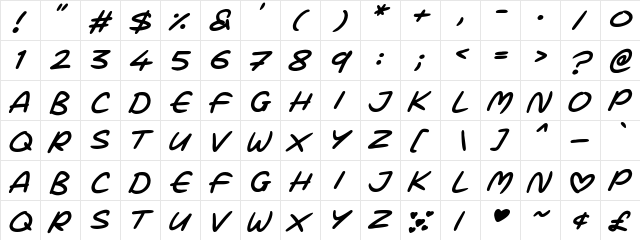
Love Marker Italic
Design Context for Love Marker Typeface
Love Marker is a composed and adaptable typeface that performs quietly and consistently across a wide range of design contexts. The dynamic lean of this cut emphasises speed and emphasis in any layout.
Pro Tip: Use Love Marker for emphasis, pull quotes, and subheadings where its slanted energy can add rhythm to the layout.